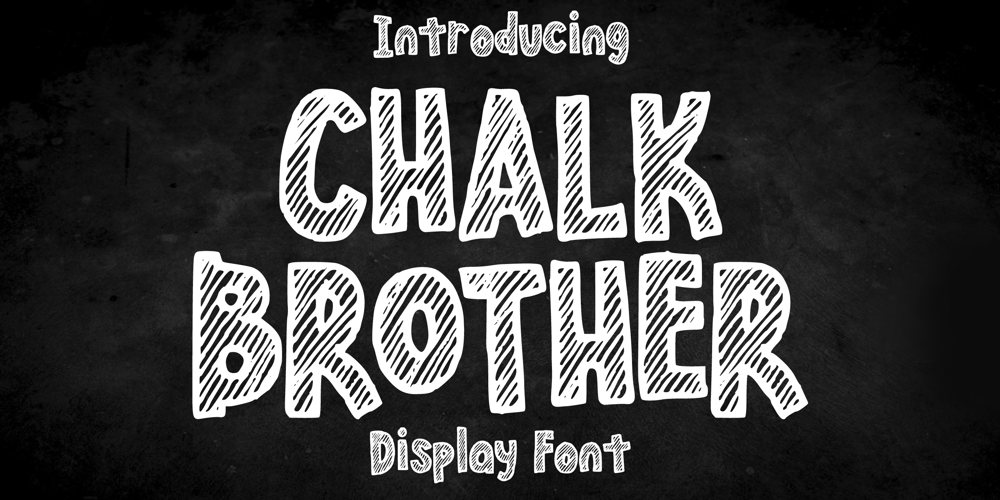
Chalk Brother Font Family was designed by Gabriel Valentinus and published by Mvmet. Chalk Brother contains 1 styles and family package options. Chalk Brother is a very cool and playful chalk-themed display font, it’s very versatile. It works great for creating cool designs that scream for attention. It’s ideal for anything ranging from t-shirts, book designs, restaurant menu, blog writing, greeting cards to stickers, or anything that needs a casual touch. Fall in love with its incredibly cool style, and use it to create lovely designs!